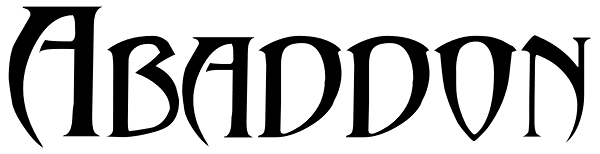
Abaddon
Abaddon has been one of our most popular fonts since it was first released in the mid-90s. It's based on lettering by Alphons Mucha with some modernization.
Abaddon Font